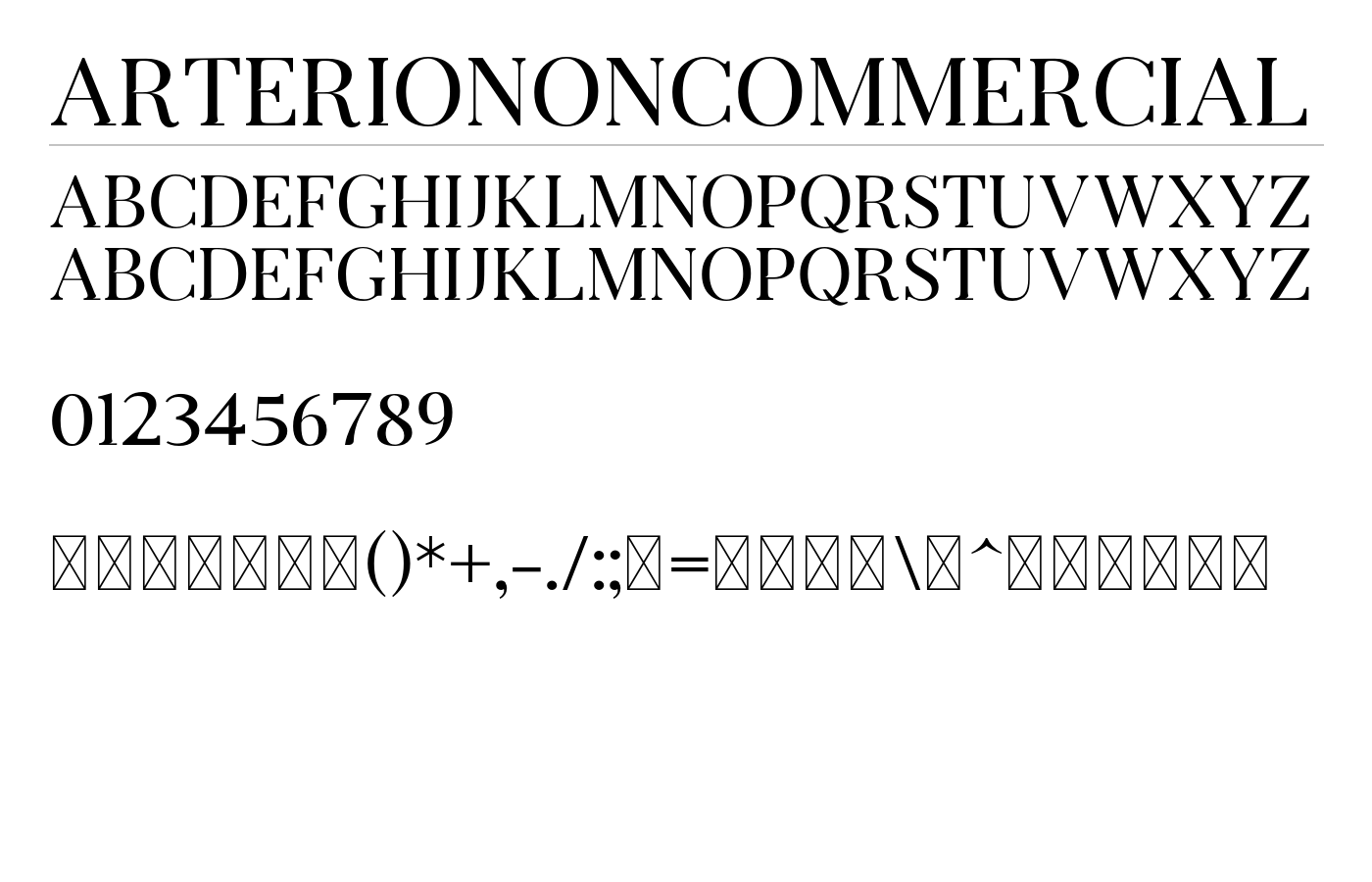
ArterioNonCommercial is a refined serif typeface with a classic, elegant feel characterized by high contrast between thick and thin strokes and delicate, bracketed serifs. Its upright, sharp letterforms and balanced proportions give it a sophisticated and formal personality, making it ideal for luxury branding, editorial headlines, and upscale print design. This font works best where a timeless, authoritative impression is desired, combining readability with a sense of tradition and class.
About ArterioNonCommercial Font